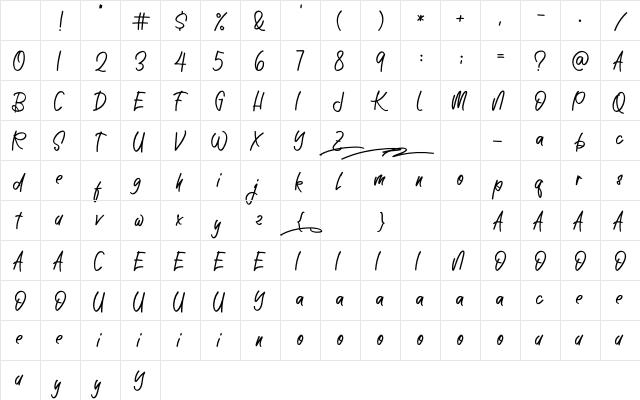
Complete King Sirajudin Regular glyph index. Displaying only characters natively supported by King Sirajudin Regular font.
King Sirajudin is a composed and adaptable typeface that performs quietly and consistently across a wide range of design contexts.
Who designed the King Sirajudin Regular font?
This font was published by Alghul. Check the technical specs section for copyright and designer details.